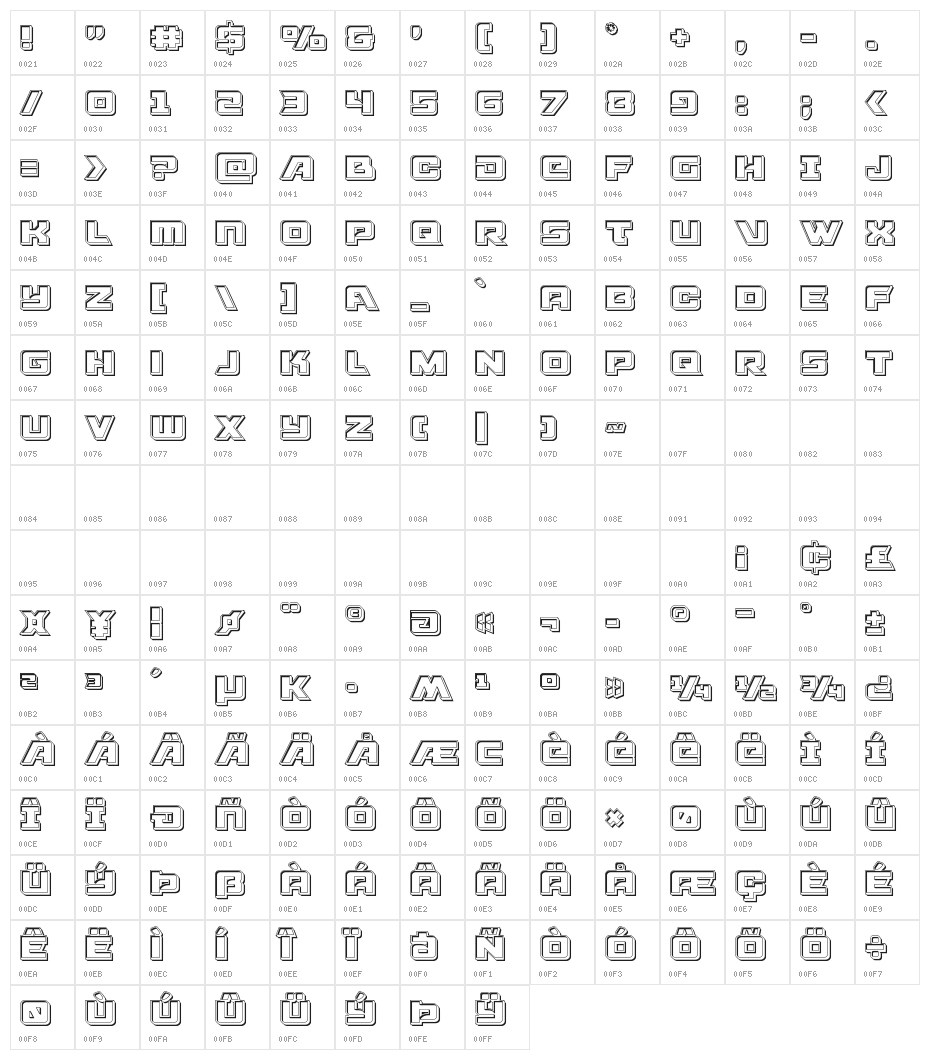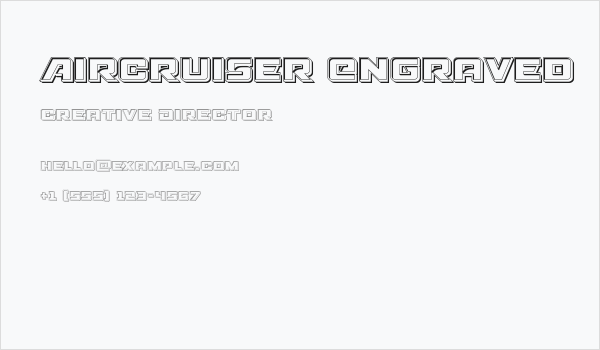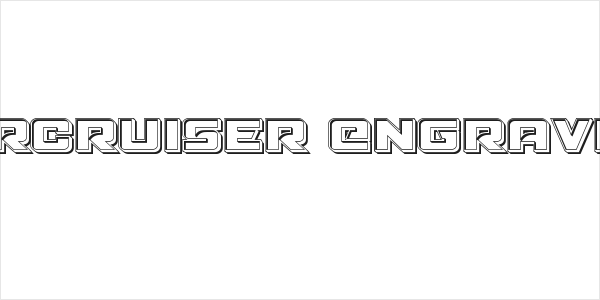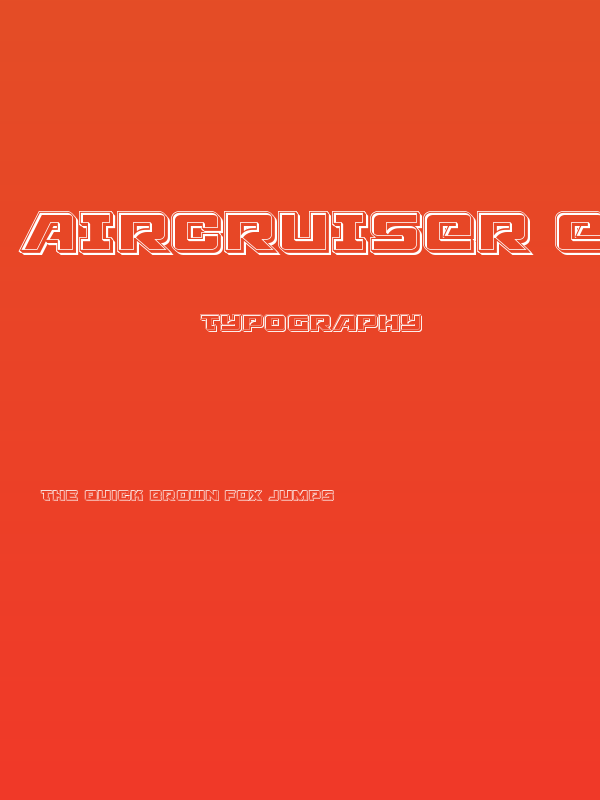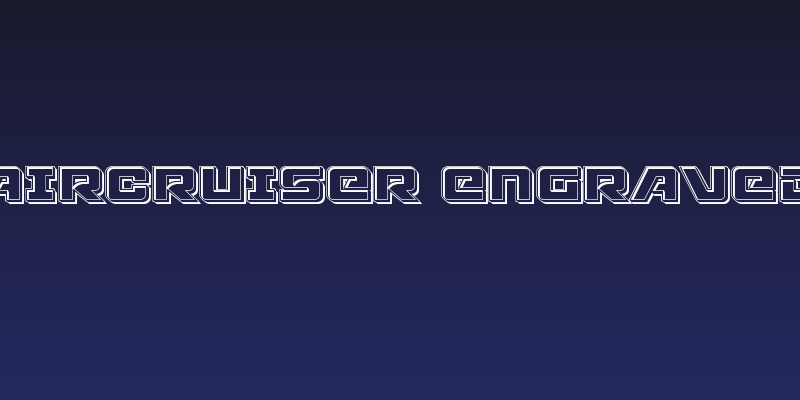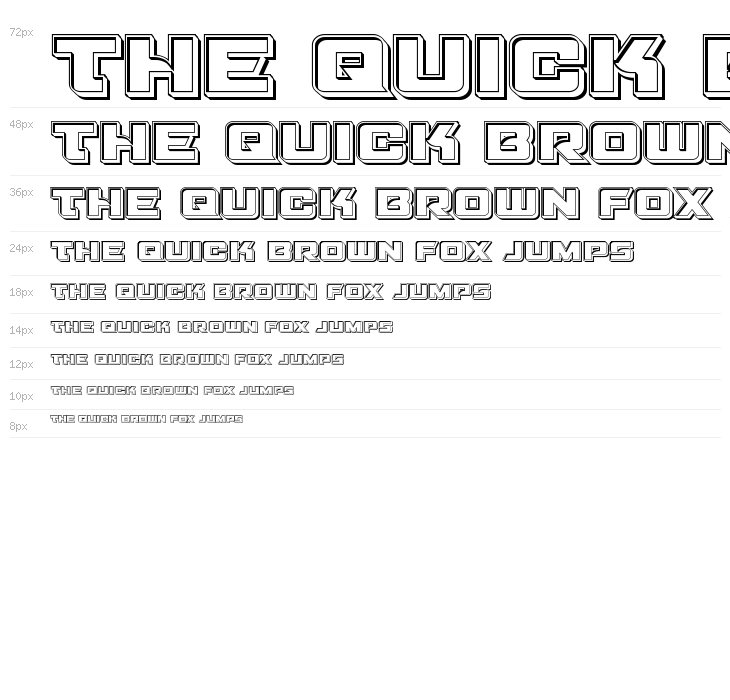
Aircruiser Engraved Font
Aircruiser Engraved Description
This font features a bold, geometric design with a three-dimensional engraved effect. The characters are outlined with a double line, creating a sense of depth and shadow. The style is reminiscent of futuristic or sci-fi themes, with sharp angles and a blocky appearance. Each letter and number is distinct, with consistent spacing and alignment, making it highly legible despite its decorative nature. The font includes a full set of uppercase letters, numbers, and a variety of special characters, making it versatile for various design needs.